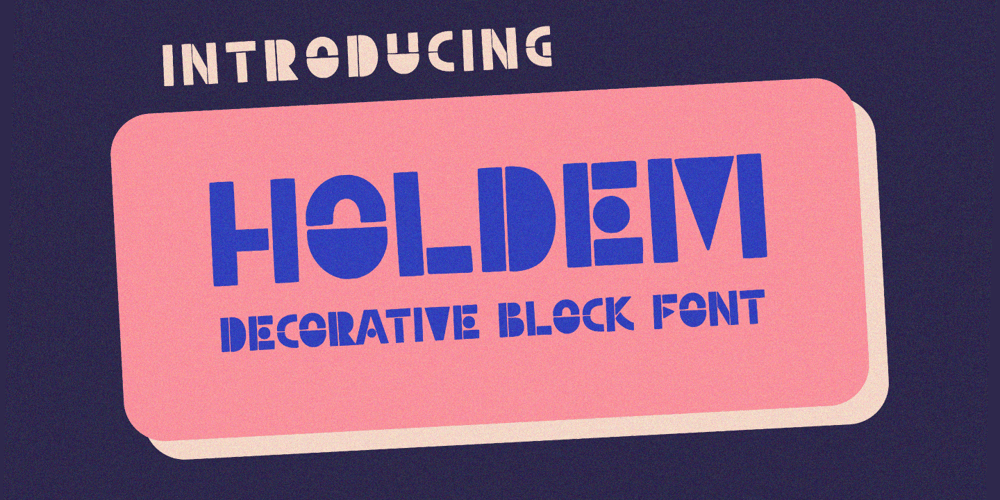
Holdem Font Family was designed by Risman Ginarwan and published by Garisman Studio. Holdem contains 1 styles and family package options. Introducing Holdem – Display Block FontHoldem combines attractive curves with a fresh urban edge; delivering a stylish script which is guaranteed to add an eye-catching appeal to your logo designs, brand imagery, quotes, product packaging, merchandise & social media posts. Simple installation Work for PC and MAC Multilingual Support.